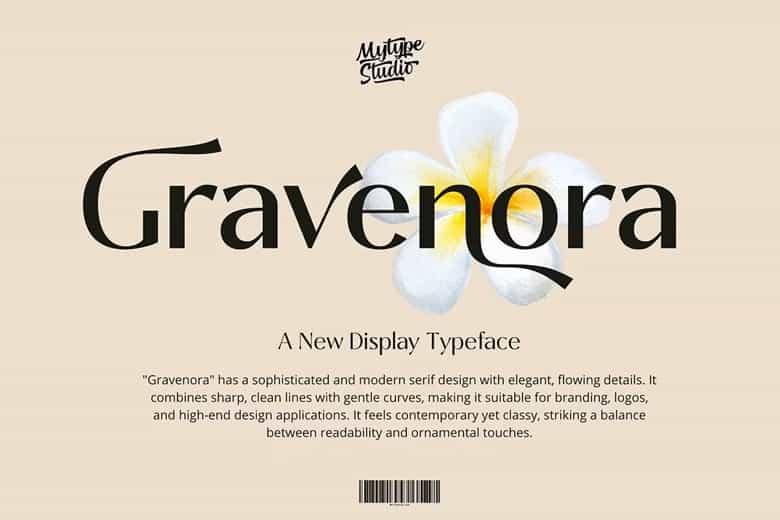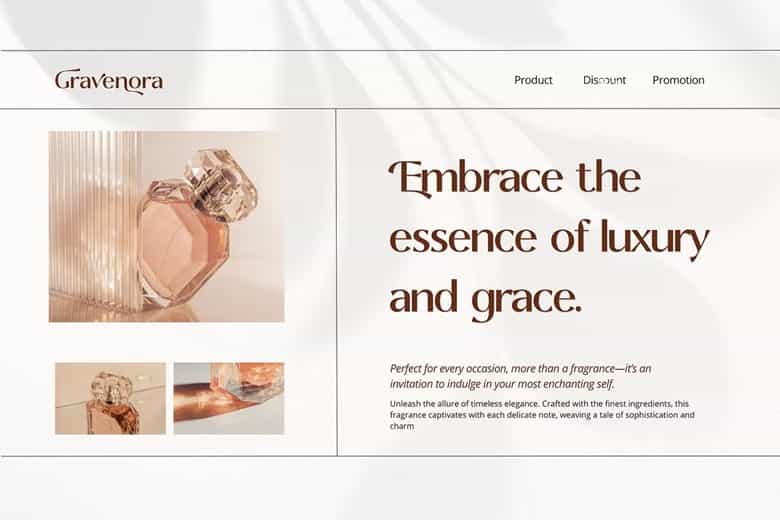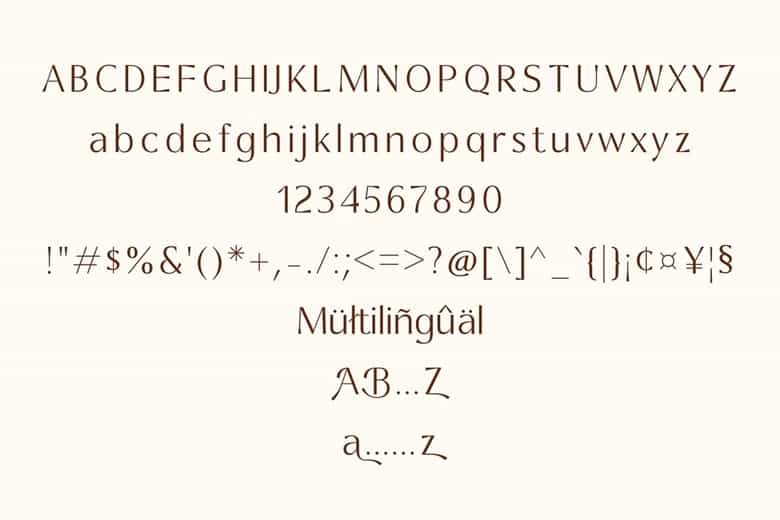
Gravenora, a meticulously designed serif display typeface, opens you up to another level of sophistication. Gravenora is perfectly suited for branding and logos, high end editorial design, and invitations.